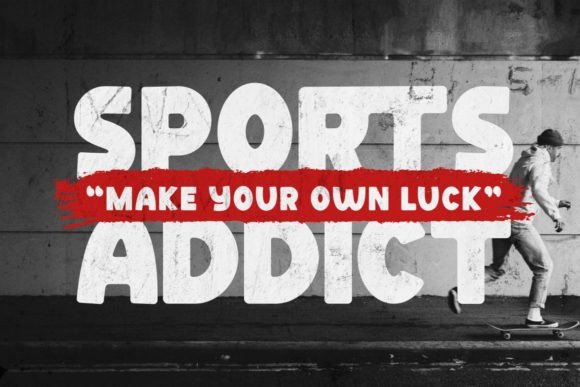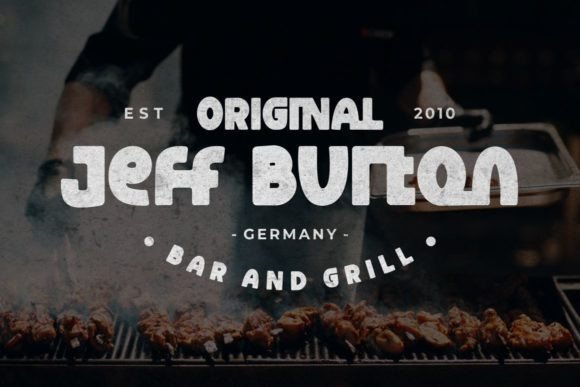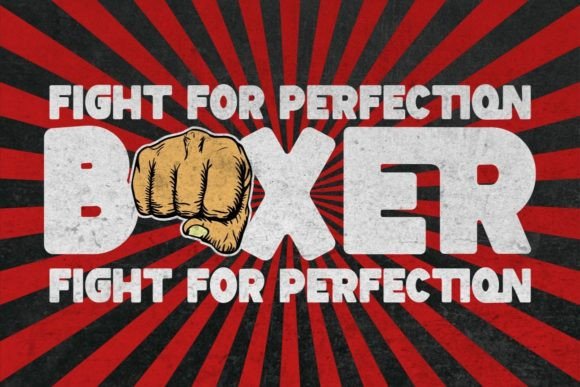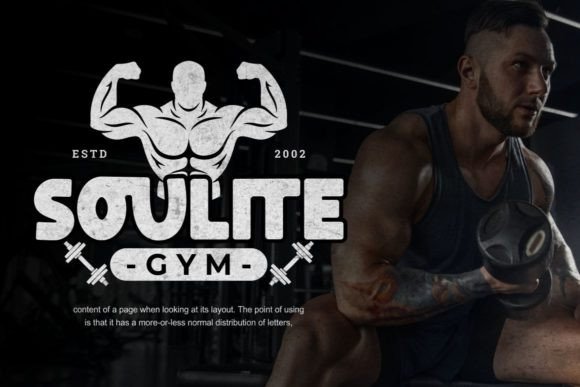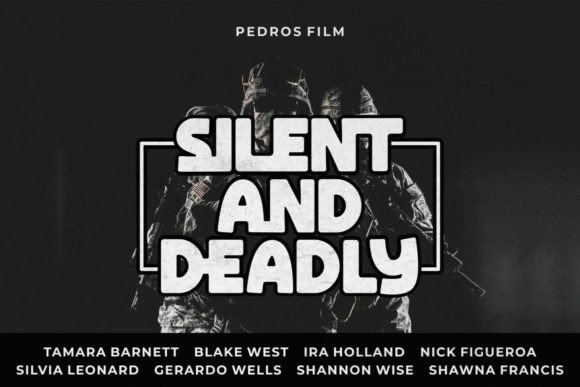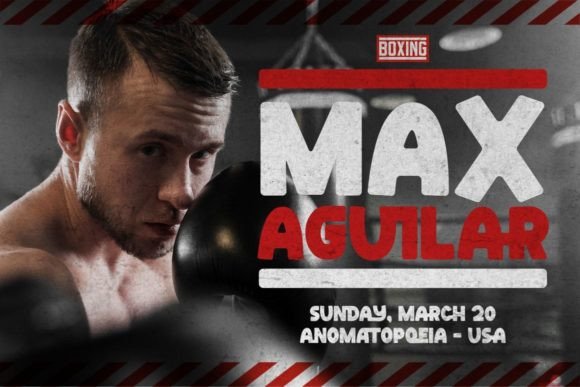
The Ultimate Font for Creative Projects: Boxer Punch
I’ll never forget the time I was working on a project for a sports brand, and I just couldn’t find the right font to capture the energy and playfulness of their products. The client wanted something bold, yet elegant; modern, yet approachable. It wasn’t until I stumbled upon Boxer Punch – Soft Bold Font that I knew I had found the perfect fit. In this article, I’ll share my experience with Boxer Punch, its features, and how to make the most of it in your designs.
First Impressions: What I Love About Boxer Punch
Boxer Punch is a stylish and modern font that combines a soft bold shape with a cute sans serif, making it perfect for creating eye-catching designs. Here are some things I love about Boxer Punch:
- ✨ Unique design: Boxer Punch’s smooth and elegant lines make it stand out from other fonts.
- ✅ Versatility: This font is perfect for a variety of design projects, from sports-themed work to branding, packaging, and social media graphics.
- 💡 OpenType features: Boxer Punch includes alternates and stylistic alternates, giving you more creative control over your designs.
- 📚 Elegant and modern feel: The font’s understated realism makes it perfect for those looking to create a professional touch in their designs.
While Boxer Punch is an excellent font, there are a few things to keep in mind:
- 🤔 Limited use cases for very formal projects: While Boxer Punch is elegant and modern, it may not be the best fit for very formal or traditional projects.
- ⚠️ Requires some experimentation: To get the most out of Boxer Punch’s OpenType features, you may need to experiment with different settings and combinations.
The Story Behind Boxer Punch
The idea behind Boxer Punch was to create a font that combines elegance and playfulness. The designer wanted to create a font that would capture the energy and modernity of sports branding while maintaining a sophisticated feel. The result is a font that’s both bold and refined, perfect for a wide range of design projects.
Q: What is Boxer Punch font?
A: Boxer Punch is a stylish and modern font designed to catch the attention of your audience. It combines a soft bold shape with a cute sans serif, making it perfect for creating eye-catching designs.
Q: What are the OpenType features of Boxer Punch?
A: Boxer Punch includes alternates and stylistic alternates, giving you more creative control over your designs.
Q: Is Boxer Punch suitable for formal projects?
A: While Boxer Punch is elegant and modern, it may not be the best fit for very formal or traditional projects. However, it’s perfect for most design projects that require a professional touch.